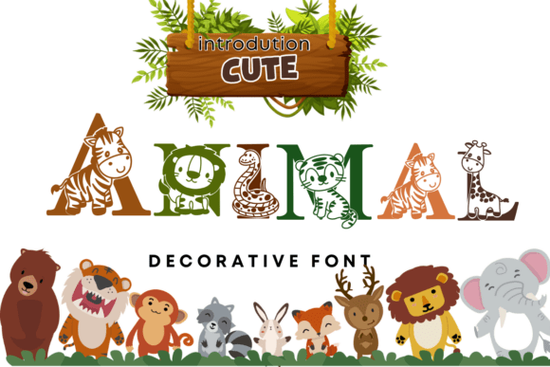
If you're looking for a friendly, hand-drawn style font that adds warmth without feeling cutesy or childish, the Cute Animal Font is a thoughtful choice especially if your work leans toward handmade charm, gentle branding, or personal stationery. It’s not overly playful like cartoon fonts, nor too formal for everyday use. Instead, it sits comfortably between approachable and intentional ideal for people who make greeting cards by hand, run small print-on-demand shops, or design custom journals and planners.
What kind of projects does Cute Animal Font work well for?
This decorative font shines where personality and readability both matter. Think: handwritten-style quotes on Instagram posts, soft labels for handmade soap packaging, or cheerful headers in a bullet journal. Because each letter has subtle irregularity and rounded edges, it feels human-made not digital or sterile. That makes it especially useful for:
- Greeting cards and thank-you notes (both physical and digital)
- Diary and planner inserts especially for adults who enjoy low-pressure, joyful writing
- Small-batch merchandise like mugs, tote bags, and enamel pins
- Social media graphics where you want to stand out without shouting
- Local business signage for cafes, bakeries, or pet-friendly shops
It’s also a good companion font when paired with clean sans-serifs for contrast say, using Cute Animal Font for headings and a neutral typeface for body text. That balance keeps things legible while still feeling special.
How does it compare to other decorative fonts on Creative Fabrica?
Unlike script fonts that require careful spacing or all-caps display fonts that lack versatility, Cute Animal Font includes full uppercase and lowercase letters, numerals, and basic punctuation so you can write naturally, not just in short bursts. You’ll find it easier to use than many “cute” fonts that sacrifice functionality for flair.
For example, if you’ve tried the Rock Music Font, you’ll notice how different the vibe is: one leans into energetic, bold expression; the other invites quiet connection. Neither is “better” they serve different moods and audiences. If your brand voice is calm, nurturing, or whimsically grounded, Cute Animal Font fits more naturally than high-contrast or grunge-inspired options.
What should you watch out for when using it?
A few practical notes:
- Don’t overuse it in long paragraphs. Like most decorative fonts, it’s designed for impact, not extended reading.
- Test spacing and sizing early. Some letters (like “g”, “y”, or “Q”) have longer descenders or ascenders preview how they look at your intended size before finalizing layouts.
- Check color contrast. Light gray on white or pastel-on-pastel may look lovely in mockups but won’t pass accessibility checks for web use.
- Pair it thoughtfully. Avoid stacking multiple decorative fonts. One standout font + one simple supporting font usually works best.
It’s also worth noting that while Cute Animal Font is great for warm, nature-adjacent themes think forest animals, backyard birds, or cozy pets it doesn’t include animal illustrations or icons. It’s purely a typeface. So if you’re building an entire themed collection, you might pair it with coordinating clipart or SVG bundles separately.
Who typically chooses this font and why?
We see it used often by:
- Print-on-demand sellers creating niche designs for animal lovers or mindfulness communities
- Etsy stationery makers who hand-letter samples but need scalable, consistent digital versions
- Small yoga studios or holistic practitioners designing workshop handouts or seasonal newsletters
- Teachers and homeschoolers making gentle learning materials especially for younger kids or neurodiverse learners
It’s not flashy but that’s part of its strength. In a landscape full of loud, trend-driven fonts, Cute Animal Font offers consistency, kindness in tone, and real usability across mediums.